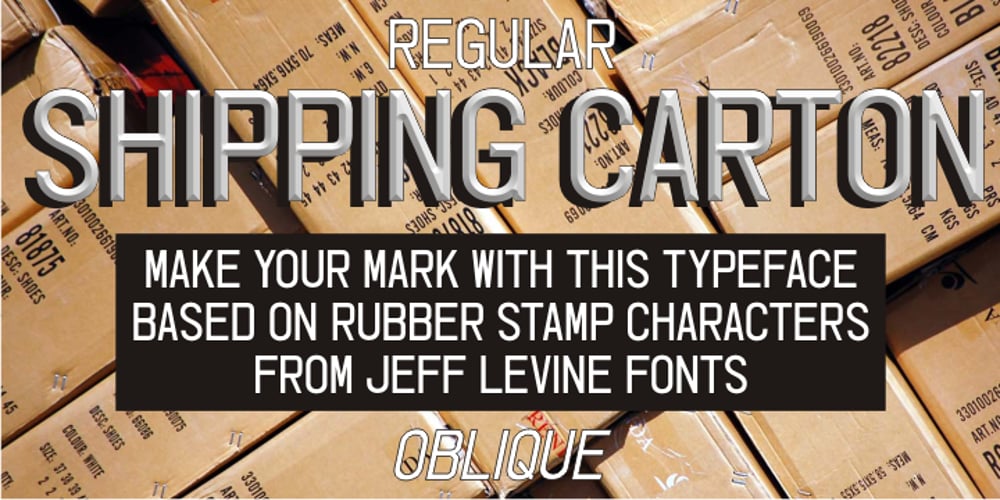
Shipping Carton JNL Font Family was designed by Jeff Levine and published by Jeff Levine. Shipping Carton JNL contains 2 styles and family package options. Shipping Carton JNL was modeled from vintage bands of rubber type used on a special rotary marking stamp (similar to an office date stamp); generally used for identifying cartons and boxes of merchandise for shipment or product identification.